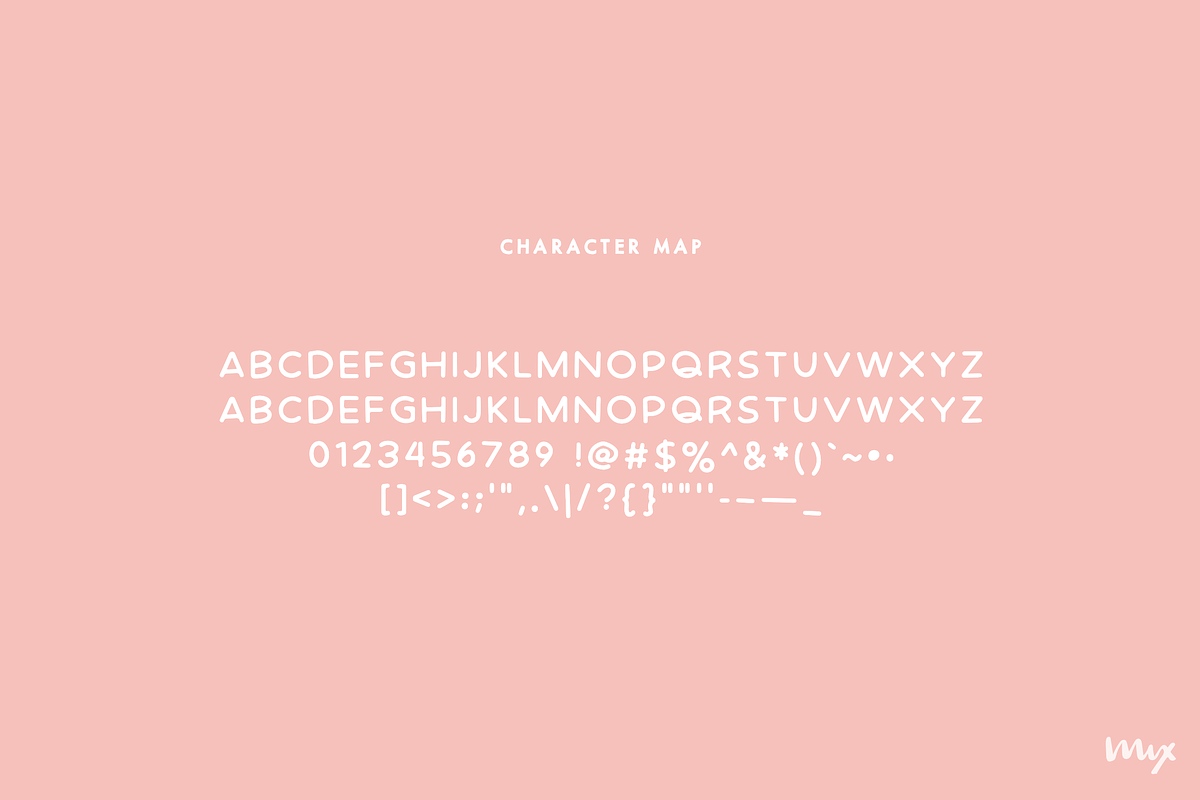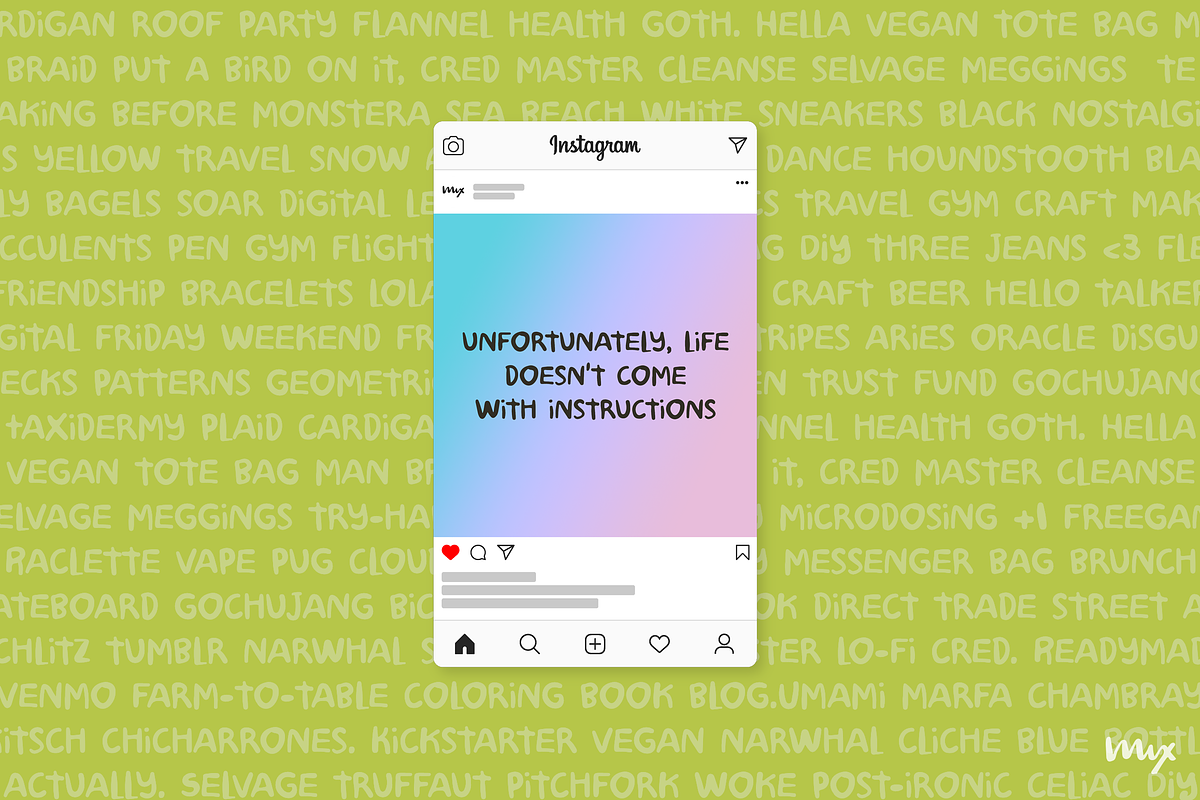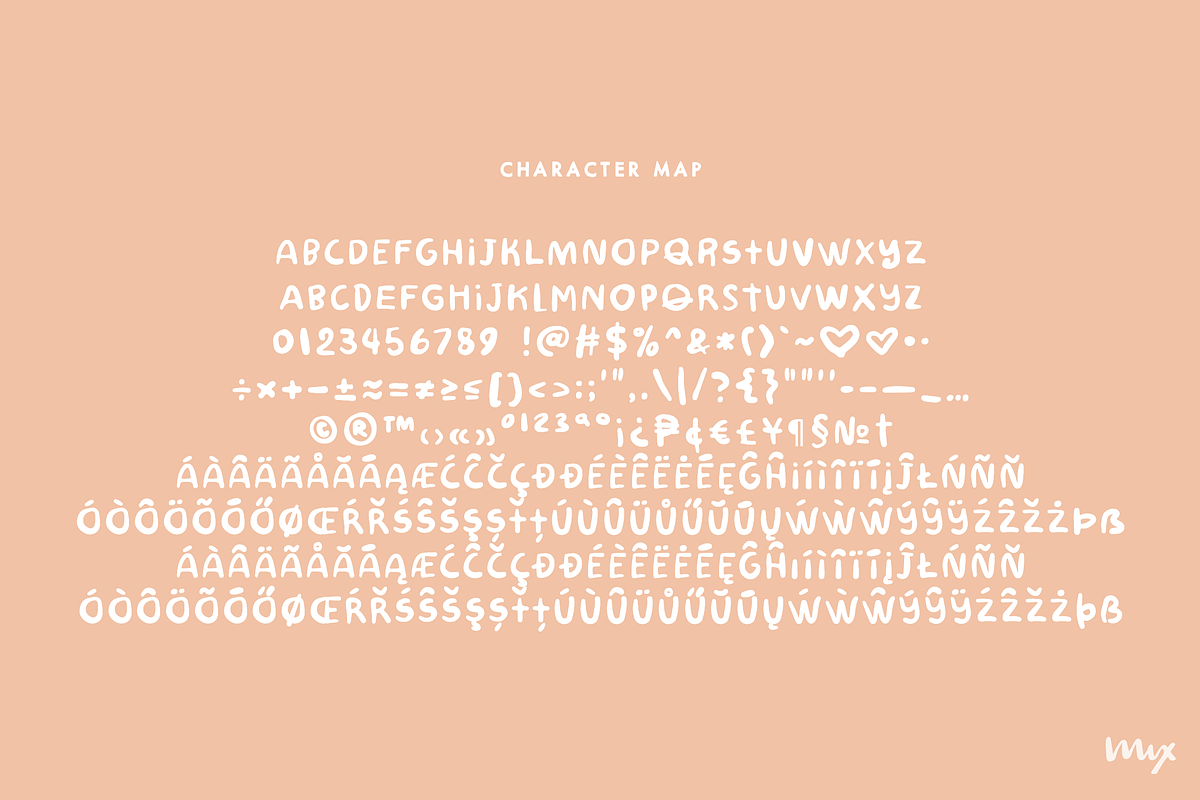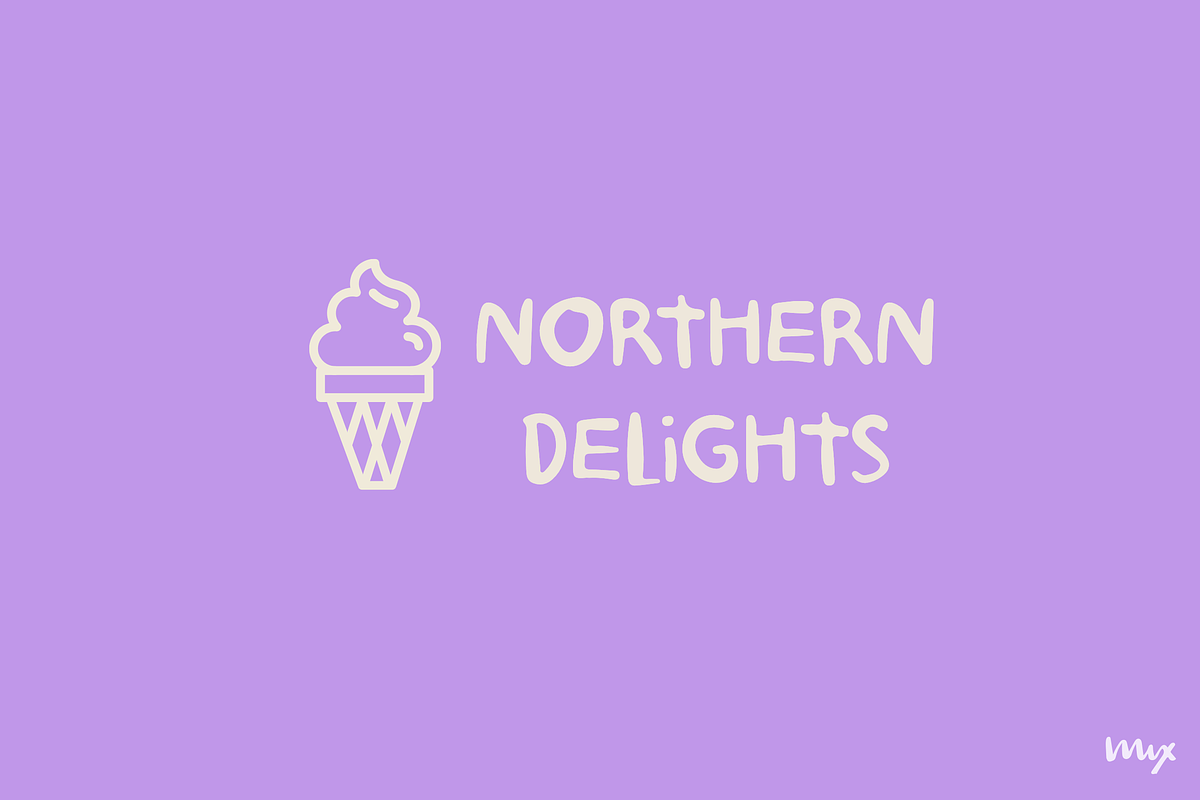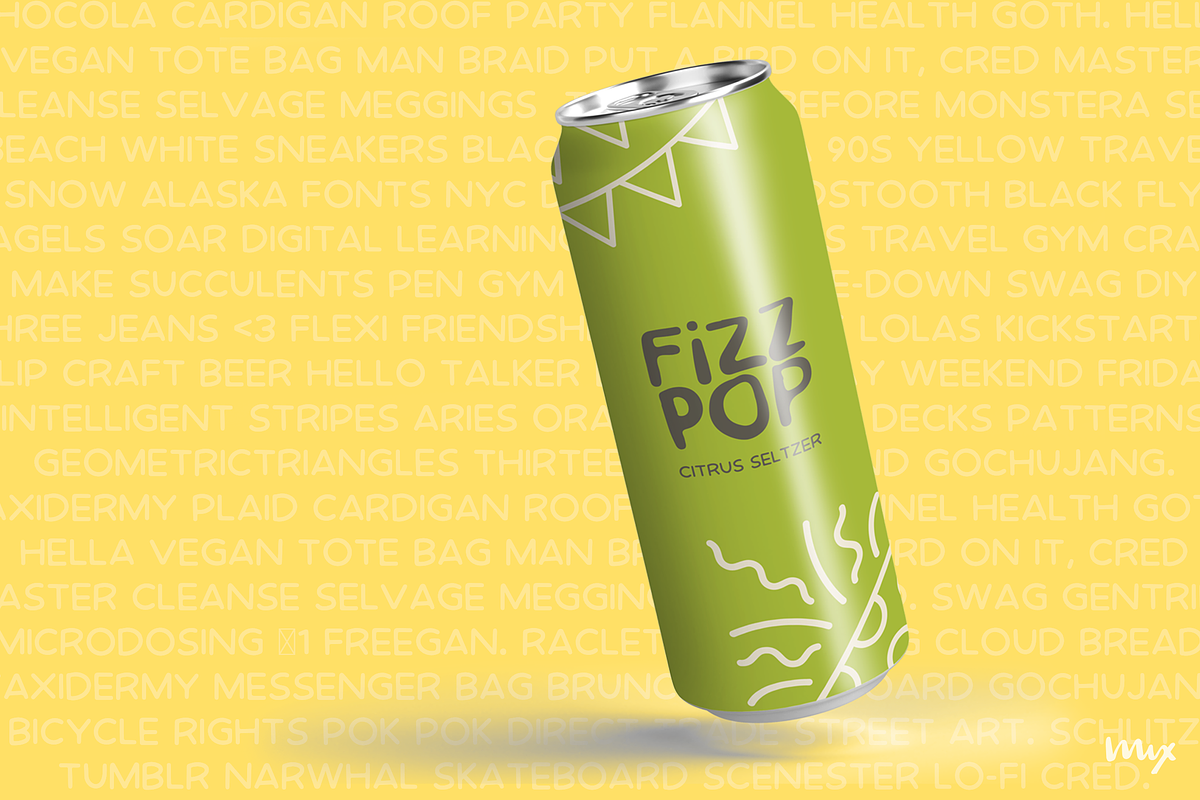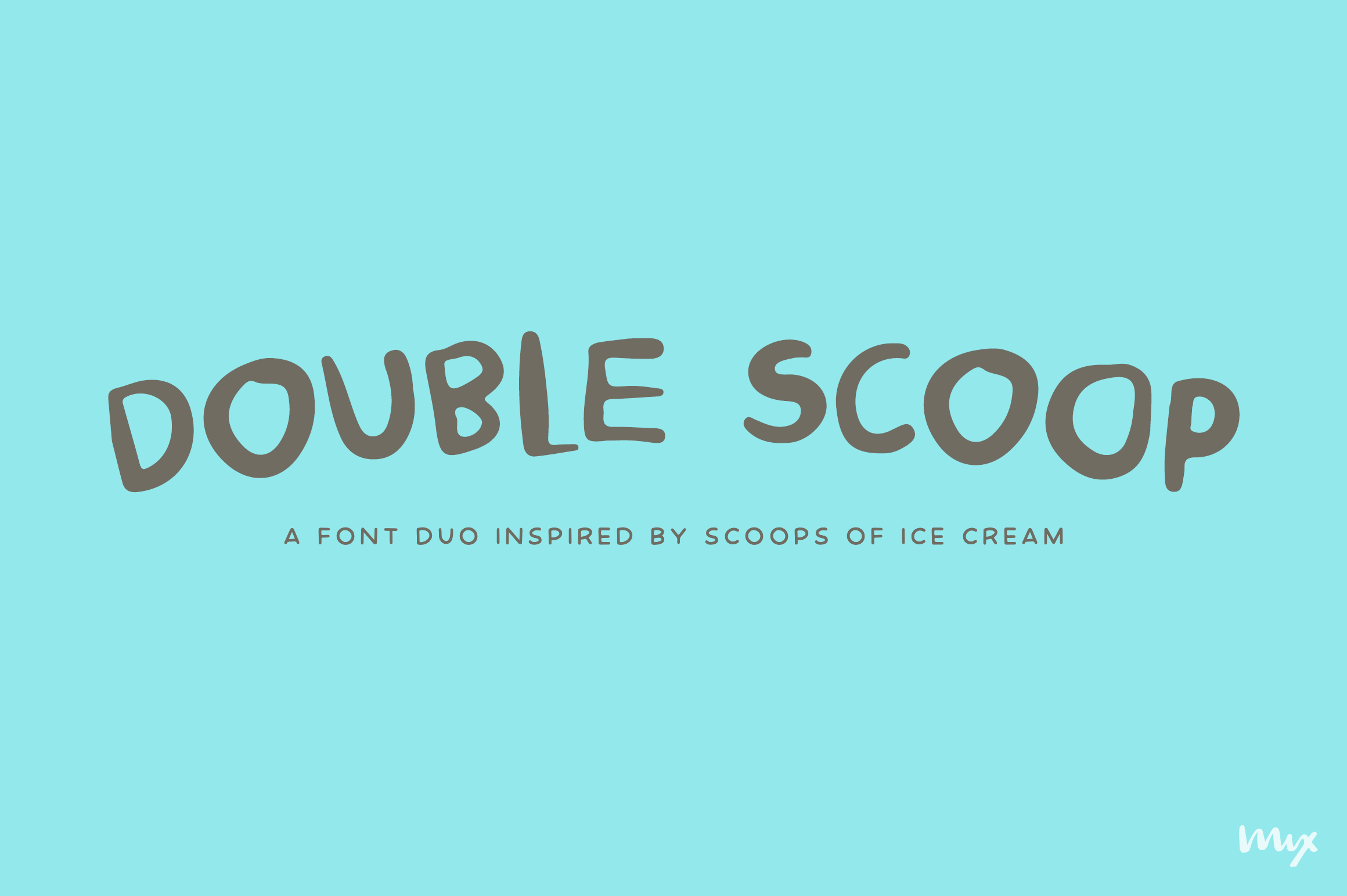
Double Scoop — A Font Duo
MIX DOUBLE SCOOP is a double serving of quirky fonts. MIX DOUBLE SCOOP is a roughly handwritten mostly uppercase font, round and rugged, inspired by scoops of ice cream melting in the summer heat. This font is paired with MIX JUNIOR SCOOP, which is a curvy and clean font–which is more reminiscent of perfectly rolled scoops of ice cream. Whether used together or alone, MIX DOUBLE SCOOP and MIX JUNIOR SCOOP are sure to be staples for your future projects!